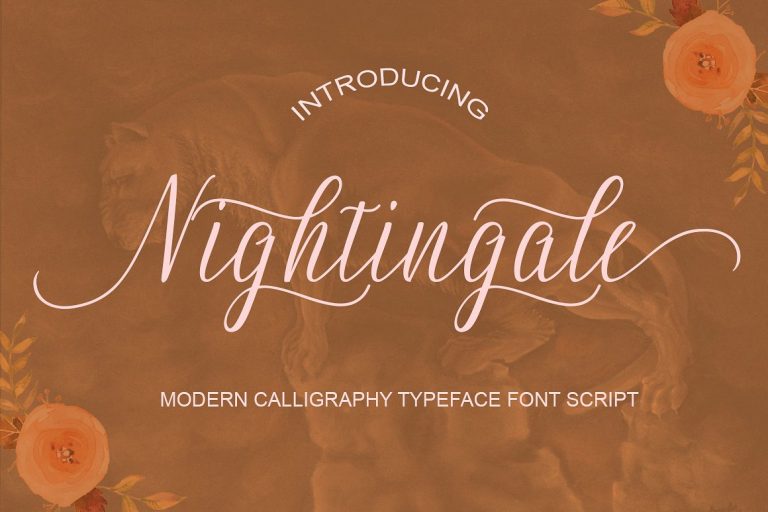
Nightingale Handwriting Font
Hi designer! I am happy to introduce you to a modern calligraphy font. Introducing Nightingale Font! Nightingale designed by JoeeCreative. Nightingale Modern Calligraphy. This font was designed by handwriting, and it has a modern and unique forms of calligraphy, the writing style is very natural.